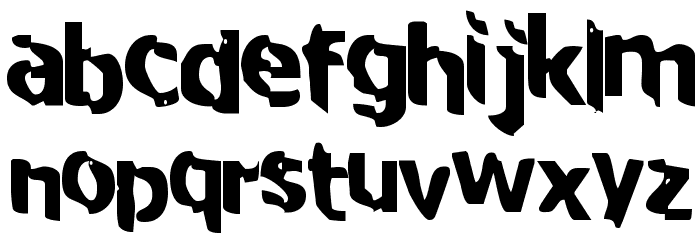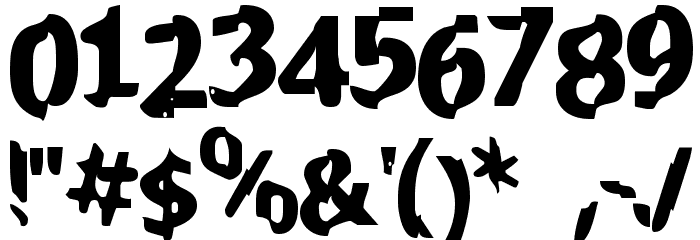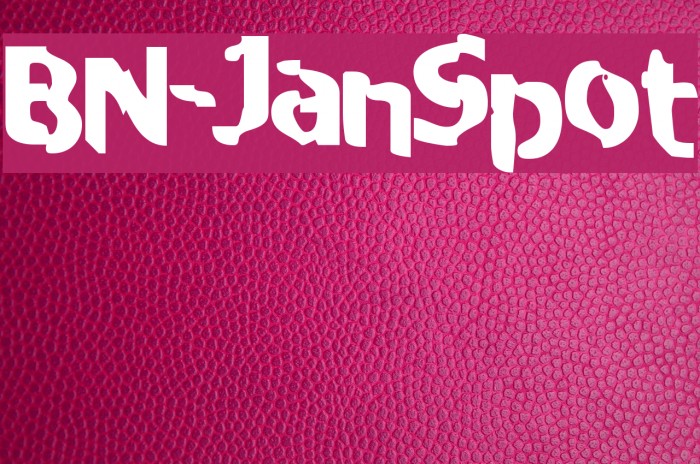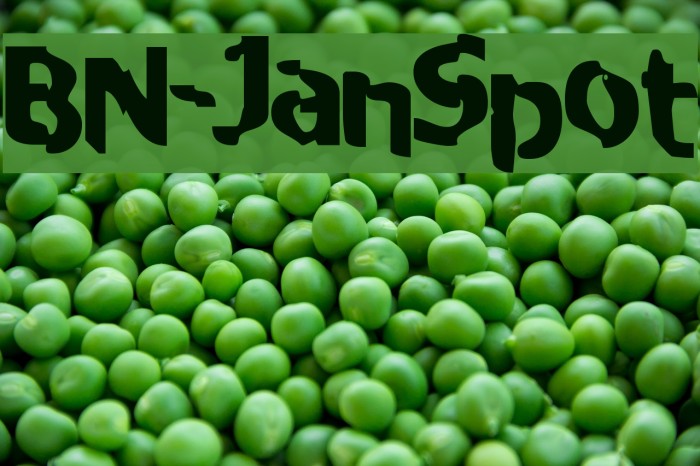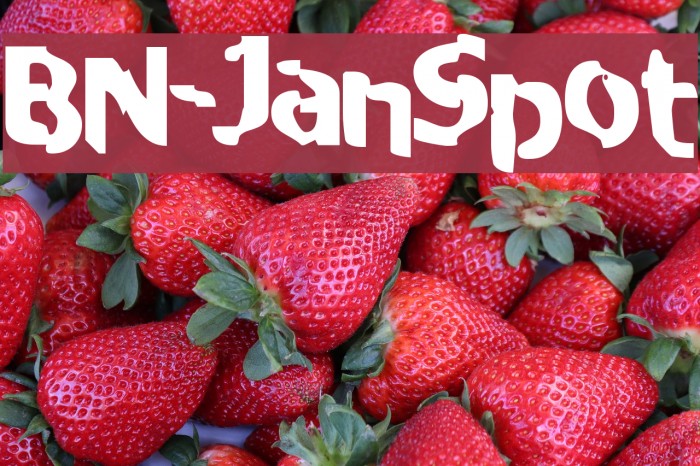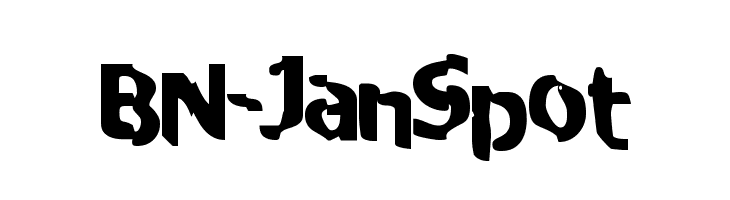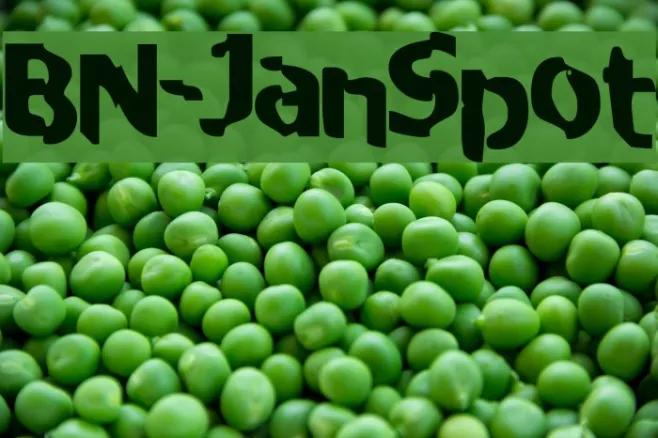
BN-JanSpot Font
This font features a bold and dynamic style with a playful, irregular design. The characters exhibit a hand-drawn quality, with uneven edges and varying stroke thicknesses that give it a lively and energetic appearance. The uppercase and lowercase letters maintain a consistent style, while the numbers and special characters complement the overall aesthetic. This font's unique and artistic flair makes it stand out, ideal for creative and eye-catching designs.
A bold, playful font with a hand-drawn, irregular style.
- Proposed Projects: Ideal for posters, album covers, children's books, and creative branding projects.